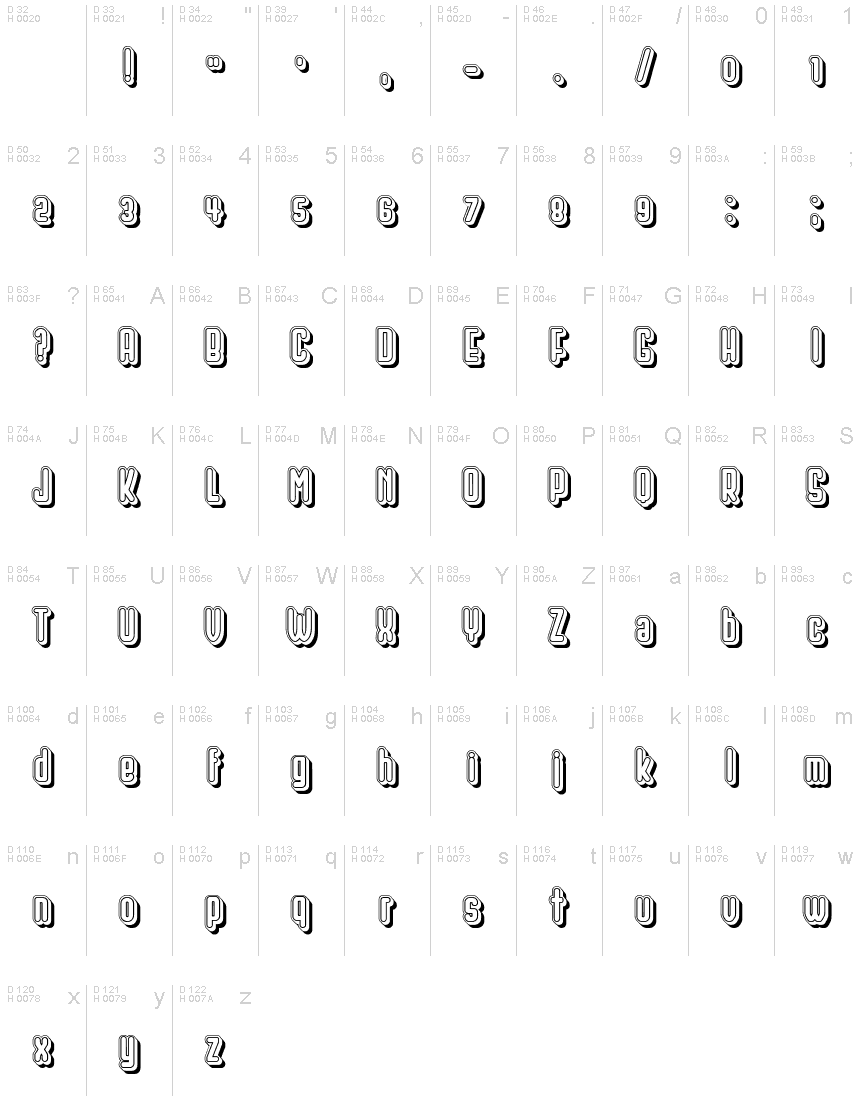
Kasetfon Regular
Kasetfon, designed by Vladimir Nikolic, is a bold and condensed display font that packs a punch. Its sharp edges and clean lines make it perfect for attention-grabbing headlines and eye-catching logos. The condensed width also makes it ideal for projects where space is limited, such as packaging design or social media graphics. Whether you're creating a sleek branding package or an edgy poster design, Kasetfon's bold personality is sure to make a statement. Try it out on your next project and watch it bring your designs to life.